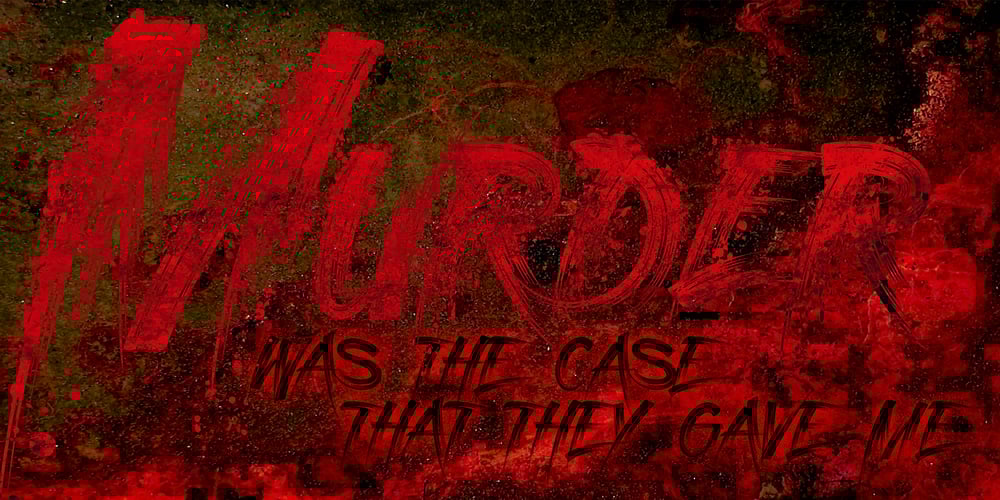
Strokes Font Family was designed by Matthew Napolitano and published by Graffiti Fonts. Strokes contains 4 styles and family package options. The Strokes type family includes three very highly detailed styles that emulate streaky, smudged and spattered paintbrush and marker strokes. This family offers a robust character set including numbers, symbols, punctuation and more.